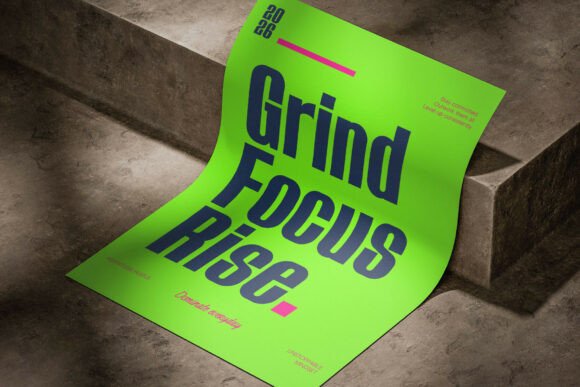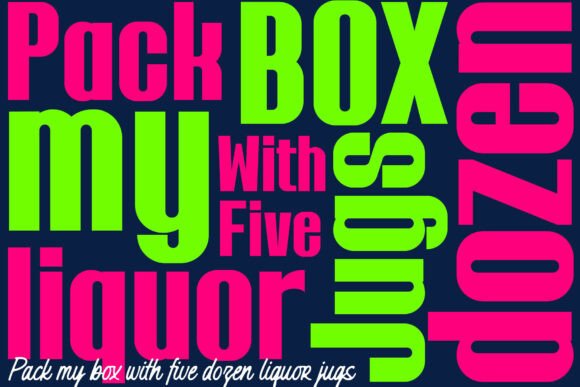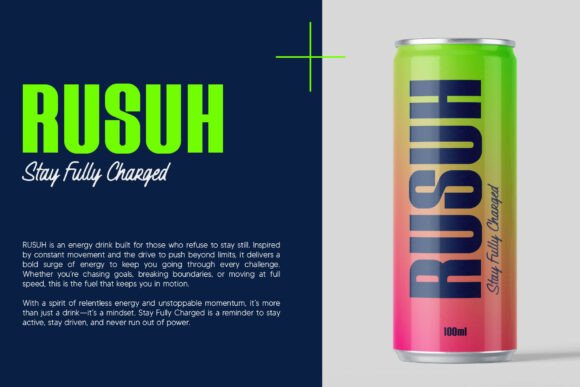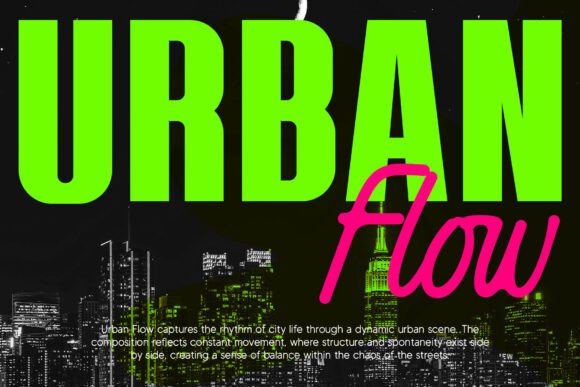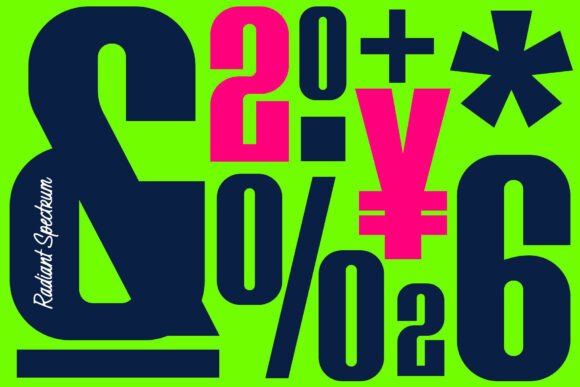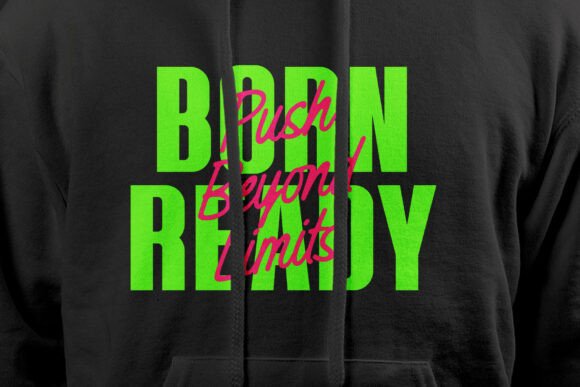
Introduction to Radiant Spectrum Font
You know that moment when you’re working on a creative project and you need that one special element to bring it all together? The right font can make all the difference. I’ve been there, and I’m sure many designers have too. That’s why I’m excited to share with you the Radiant Spectrum Font, a game-changing duo that’s about to become your new design BFF.
As a designer, you’re always on the lookout for high-quality resources that can elevate your work. The Radiant Spectrum Font is a free download that’s packed with style and versatility. With its clean and modern display sans and smooth signature script, this font duo is perfect for creating unique compositions that grab attention. Whether you’re working on branding, posters, packaging, or social media, this font is a must-have in your design arsenal.
Key Features of Radiant Spectrum Font
- The Radiant Spectrum Font is a free design resource ideal for creative projects, offering a high-quality aesthetic.
- The Radiant Spectrum Font offers a unique, vibrant aesthetic that is perfect for adding a pop of color to your design, making it stand out from the crowd.
Honest Review: Radiant Spectrum Font
I recently stumbled upon the Radiant Spectrum Font while searching for a high-quality design resource for a creative project. After giving it a try, I’m excited to share my honest review with you.
What works well: ✨ This font is truly a masterpiece. Its vibrant colors and unique design make it perfect for any project that requires a touch of elegance and sophistication. The transparent background is a great feature, allowing you to easily customize it to fit your design needs. The font is also incredibly easy to download and install, making it a convenient addition to any design workflow.
- Unique design that sets it apart from other fonts
- High-quality design that looks great on any platform
Limitations: ⚠️ While I love this font, there are a few limitations to consider. For example, the font is only available in a few weights, which may limit its versatility in certain design projects. Additionally, some users may find the font to be a bit too bold or eye-catching, which may not be suitable for all design applications.
Overall, I’m really impressed with the Radiant Spectrum Font. It’s a great addition to any design resource library and is perfect for any creative project that requires a touch of flair. Just be aware of the limitations mentioned above and use it judiciously to get the most out of this fantastic font.
The Radiant Spectrum Font is ideal for various creative projects, including:
- Graphic design and branding
- Print and digital marketing materials